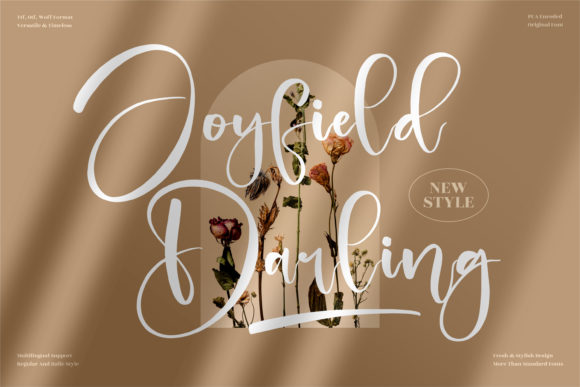
Are you a designer striving for captivating and unique fonts to bring your creative visions to life? Look no further than Joyfield Darling Font, a script font that radiates elegance and class, adding a touch of sophistication to your designs.
Crafted by the talented Perspectype, Joyfield Darling boasts a delightful and delicate allure, possessing the grace of flowing ink and the charm of handwritten strokes. Its smooth curves and elegant swashes evoke a sense of timeless beauty and romance, making it an ideal choice for modern logos, branding projects, wedding invitations, and any design that seeks to communicate a touch of class and femininity.
With Joyfield Darling as your creative companion, you'll effortlessly elevate your designs to new heights, capturing the attention of your audience and evoking a sense of awe and admiration. Its enchanting curves and intricate details will leave a lasting impression, making your creations unforgettable.
Step into a world of elegance and refinement with Joyfield Darling, and let your designs shine with a touch of timeless beauty. Its versatility extends to various creative endeavors, including website designs, social media posts, posters, flyers, and any medium where a captivating font is essential for making a statement.